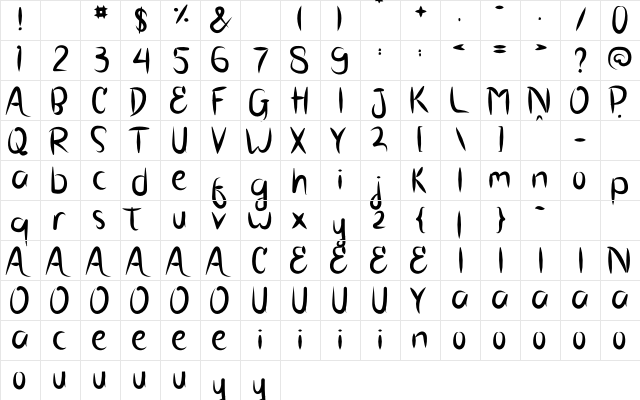
BRUSH SCOOT Regular
Design Context for BRUSH SCOOT Typeface
BRUSH SCOOT brings a calligraphic fluidity to the page — its connecting strokes and expressive curves give it an unmistakably human quality.
Font Pairing: Combine BRUSH SCOOT with a simple geometric sans for maximum contrast — the tension between flowing curves and clean structure is a classic typographic pairing.
Pro Tip: Pair BRUSH SCOOT with a clean sans-serif for supporting text. The contrast between fluid script and geometric structure creates an elegant typographic hierarchy.